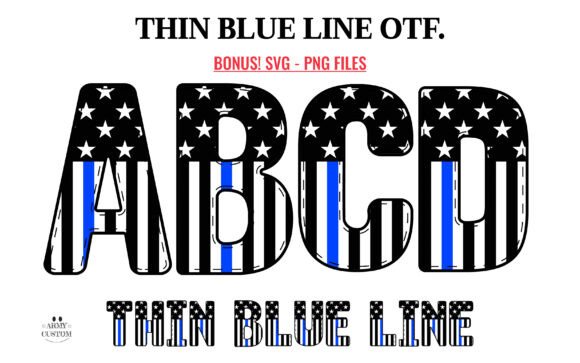
Introducing the Thin Blue Line Font: A Perfect Blend of Style and Patriotism
The Thin Blue Line Font has emerged as a powerful symbol of style and patriotism, captivating the hearts of those with a strong inclination towards national pride. This font is not just a design element; it’s a statement that resonates with free-spirited individuals who wish to showcase their love for their country through a unique and stand-out aesthetic.
Key Features of the Thin Blue Line Font
- Unique Design: The Thin Blue Line Font boasts a distinctive design that sets it apart from other fonts. Its cool aesthetic is perfectly balanced with a high-spirited pride that makes it a compelling choice for various design projects.
- Patriotic Inclination: This font is a beautiful representation of patriotism, allowing designers to infuse their work with a sense of national pride and loyalty.
- Versatility: The Thin Blue Line Font is versatile and can be used in a variety of design projects, from personal crafts to professional branding, offering a stylish touch that is hard to achieve with standard fonts.
Design Applications of the Thin Blue Line Font
The Thin Blue Line Font’s unique blend of style and patriotism makes it suitable for a variety of design applications. Here are some ways you can incorporate this font into your projects:
- Personalized Crafts: Add a touch of patriotism to your DIY crafts, such as customized signs, banners, and cards.
- Professional Branding: Use the Thin Blue Line Font in your branding materials to convey a sense of loyalty and national pride.
- Social Media Graphics: Create engaging social media content with a patriotic twist, perfect for campaigns, promotions, or simply expressing your national pride.
- Event Decorations: Incorporate the Thin Blue Line Font into your event decorations, such as flyers, posters, and banners, to set a thematic tone.
Why Choose the Thin Blue Line Font?
In a world where design elements are abundant, the Thin Blue Line Font stands out for several reasons:
- Unique Aesthetic: Its cool and stylish design ensures your projects stand out.
- Patriotic Appeal: It allows designers to infuse their work with a powerful sense of national pride.
The Thin Blue Line Font is more than just a design element; it’s a statement of style and patriotism. Its unique aesthetic, coupled with its compatibility with a range of design software and machines, makes it a versatile and powerful tool for designers. Whether you’re crafting personalized items or developing professional branding materials, this font offers a stylish and meaningful way to connect with your audience. By choosing the Thin Blue Line Font, you’re not just selecting a font; you’re embracing a symbol of pride and loyalty that resonates with free-spirited individuals around the world.